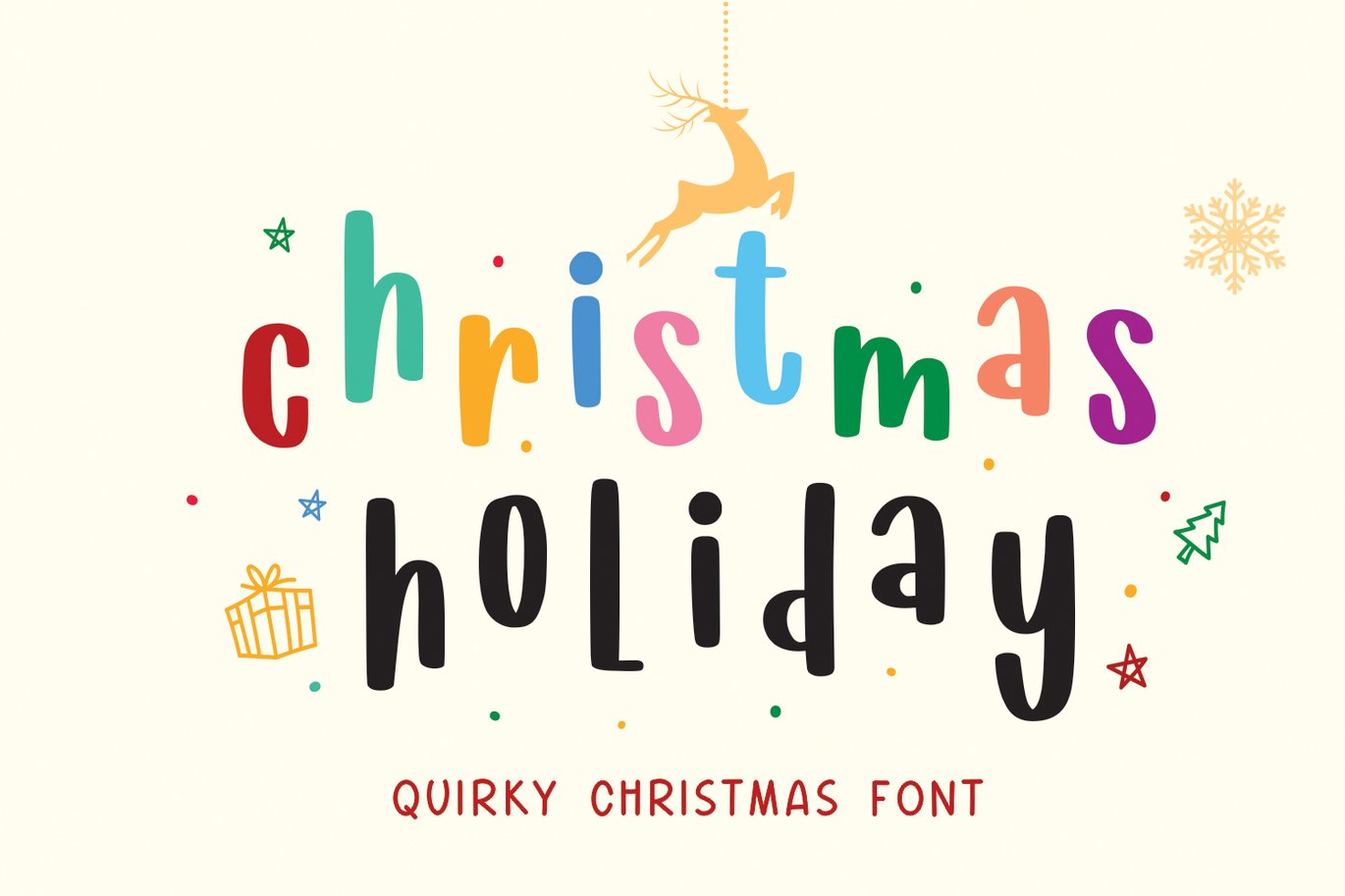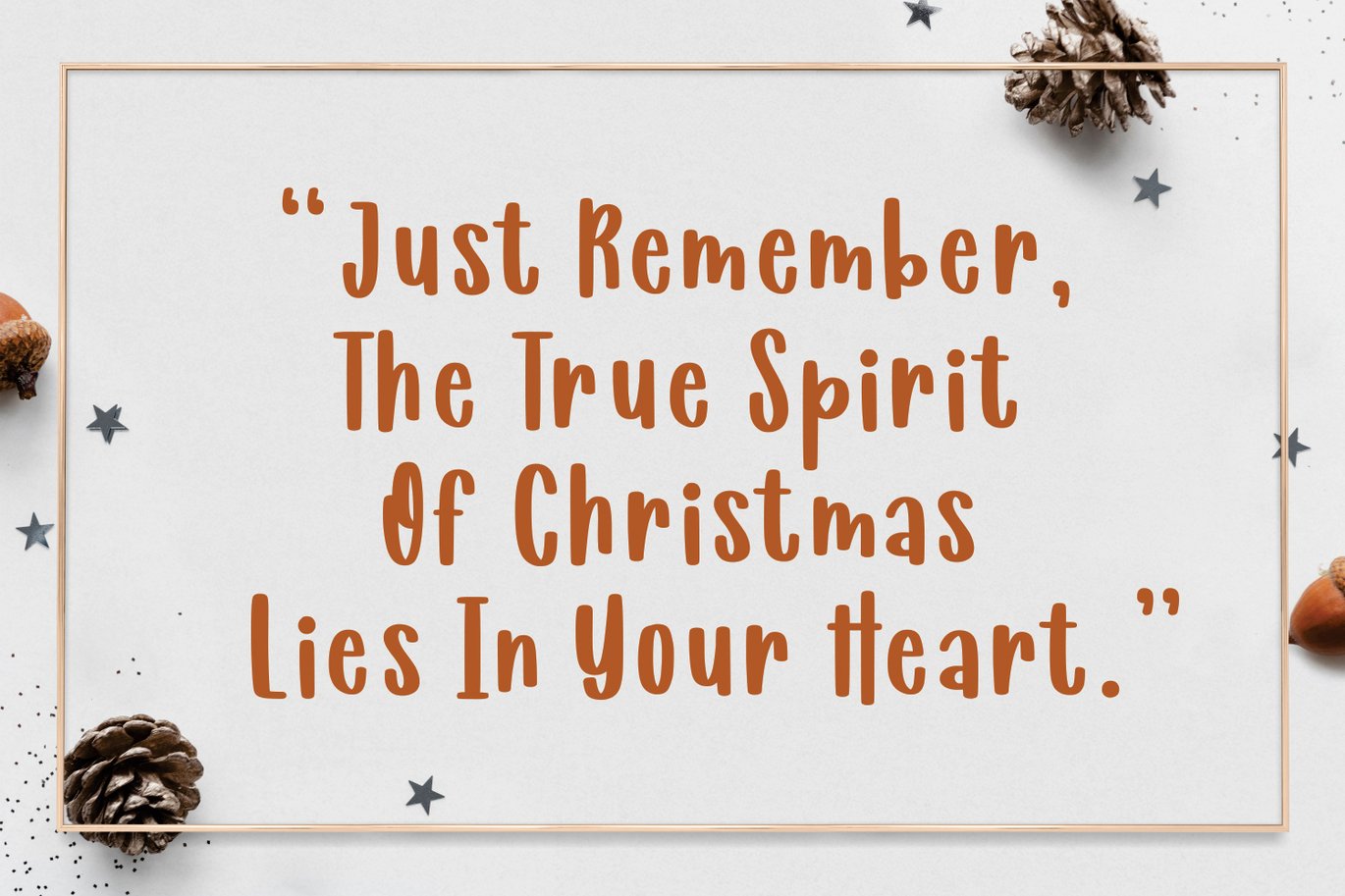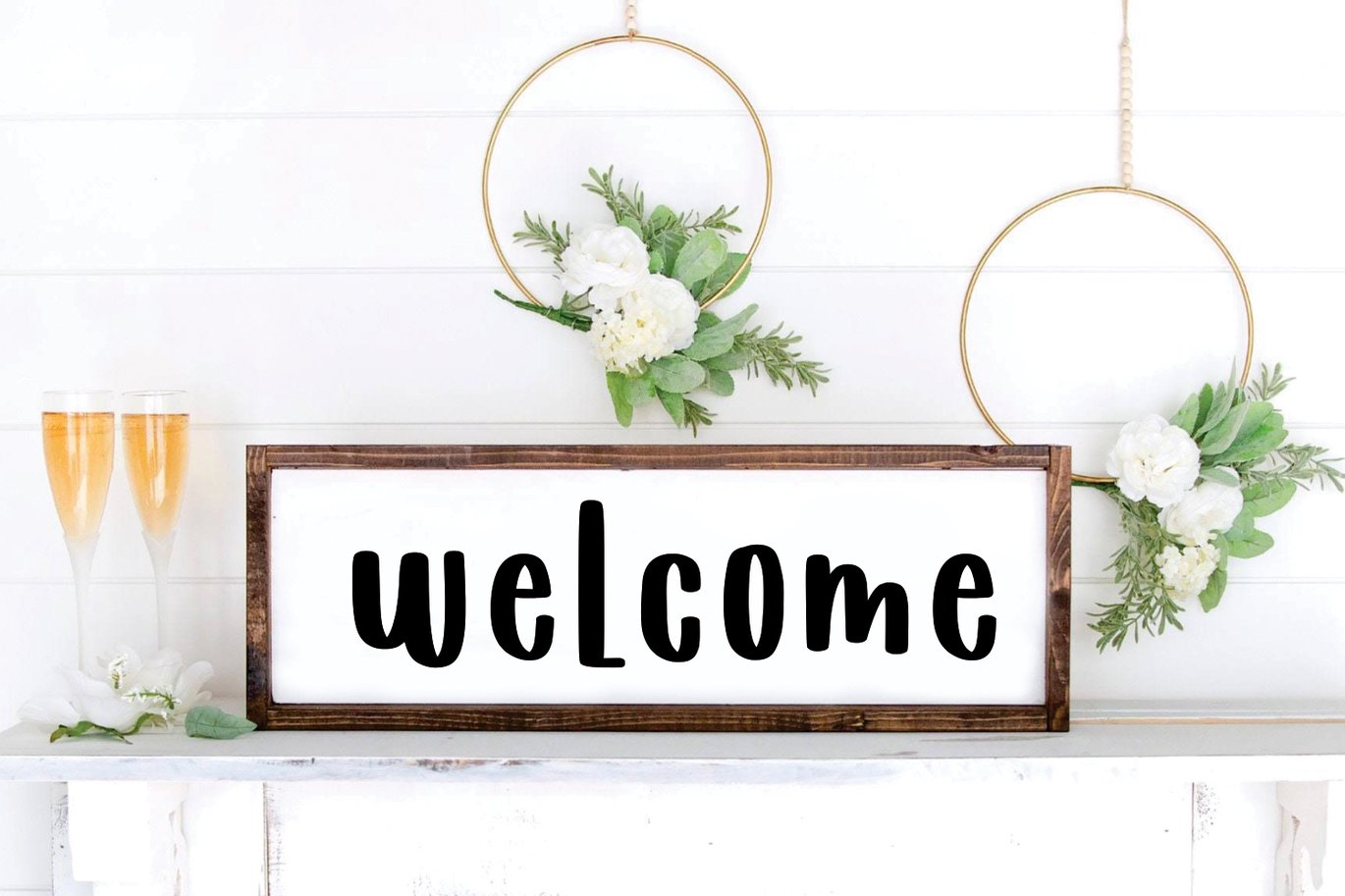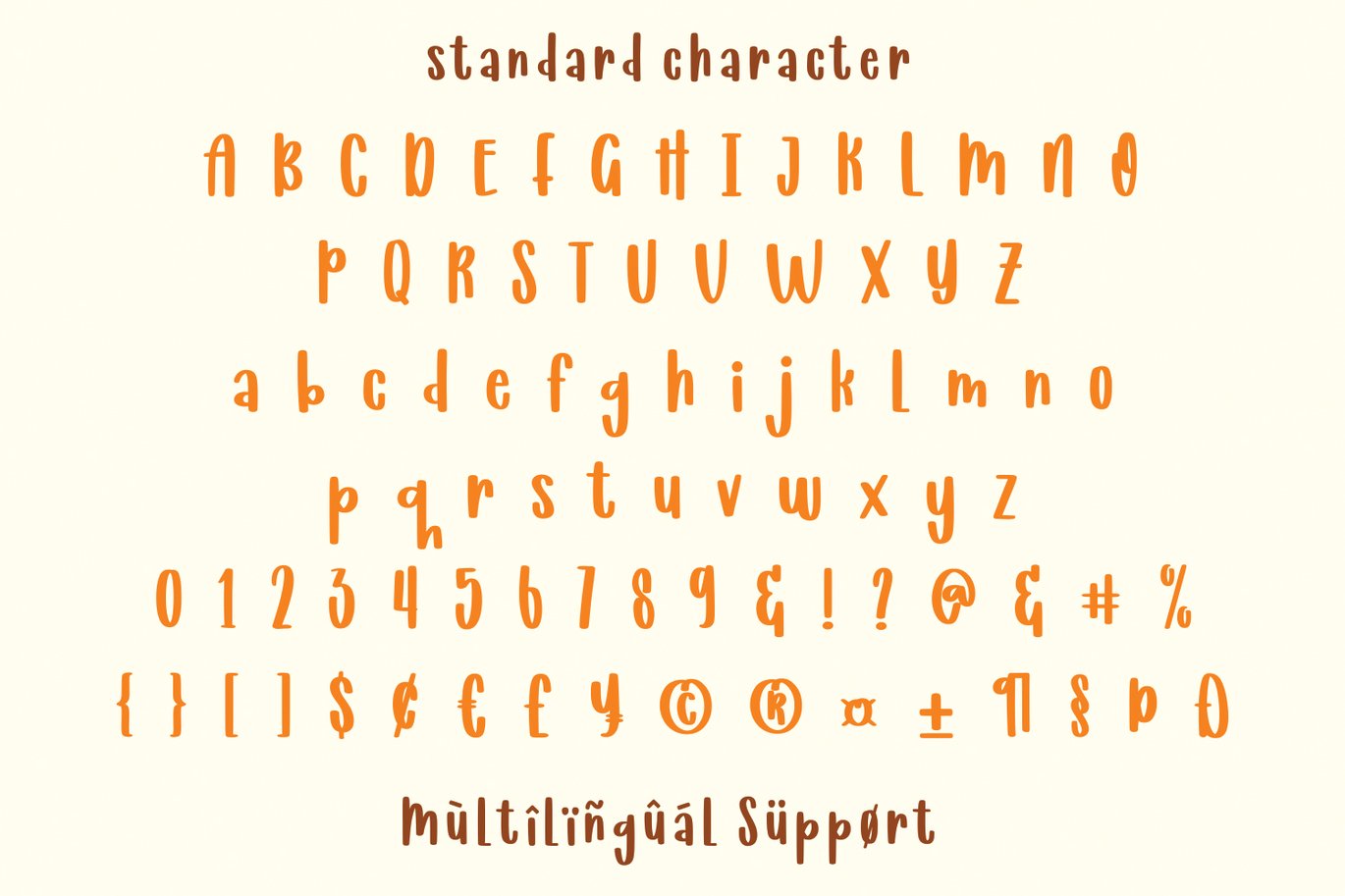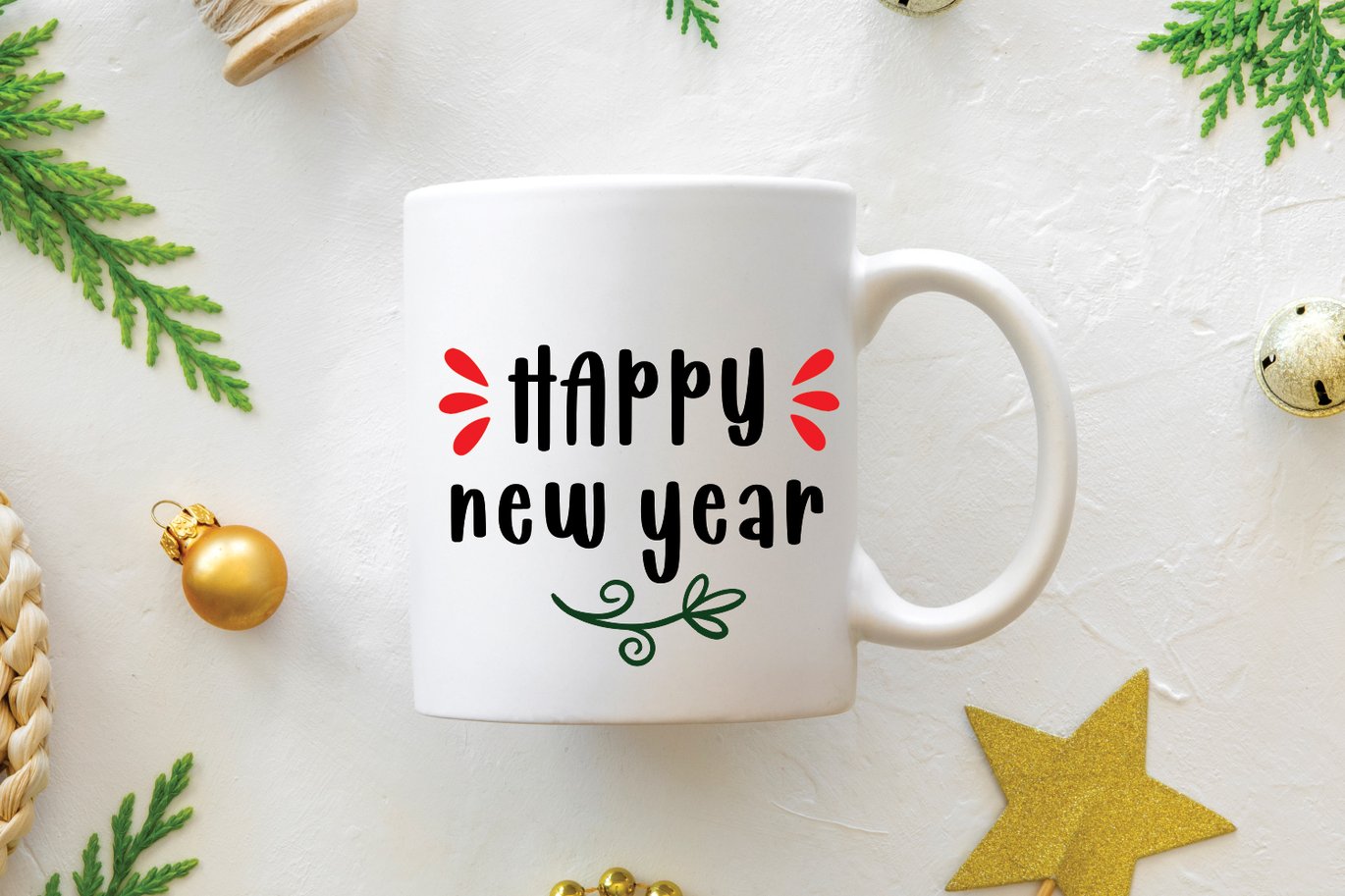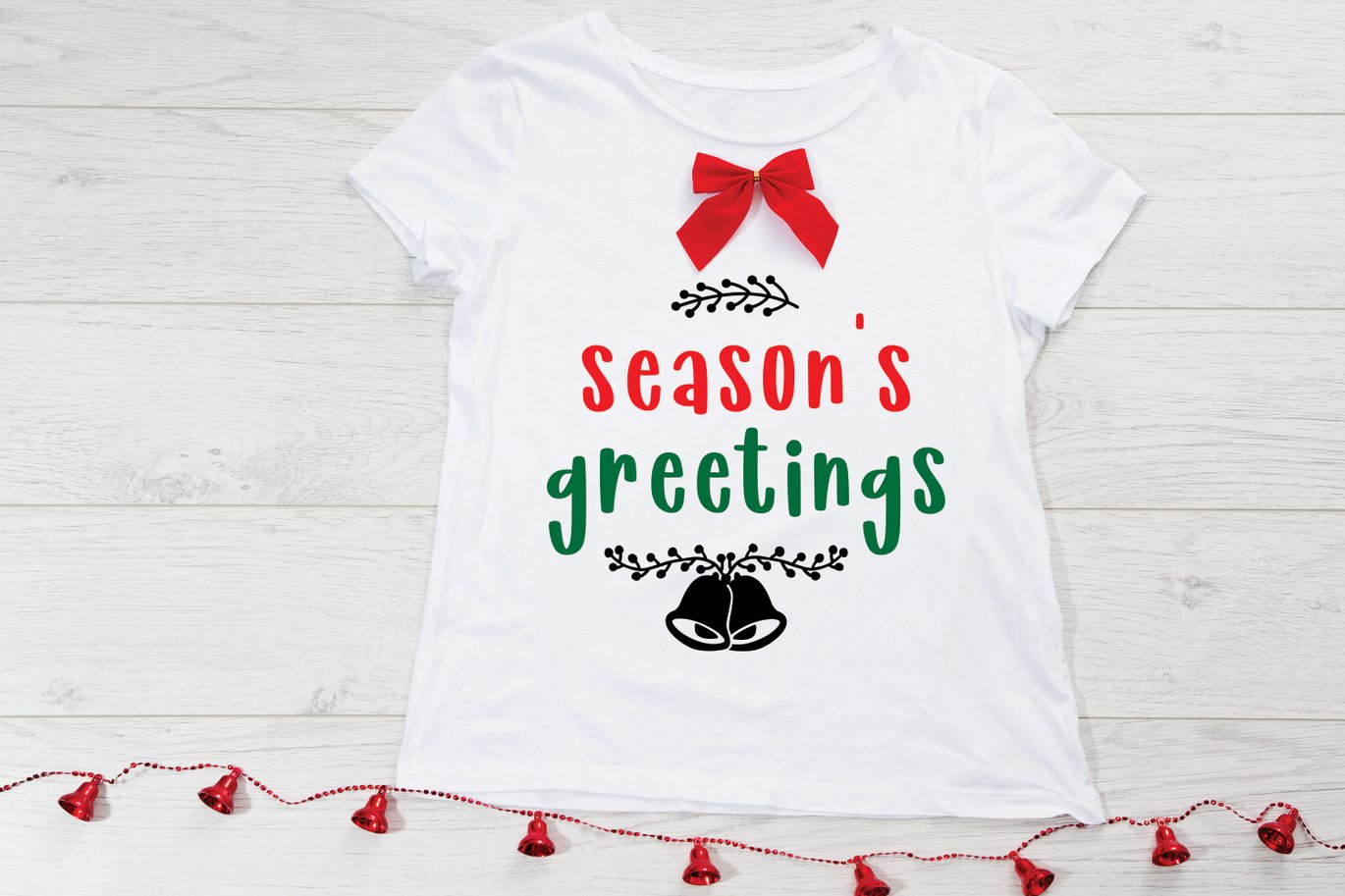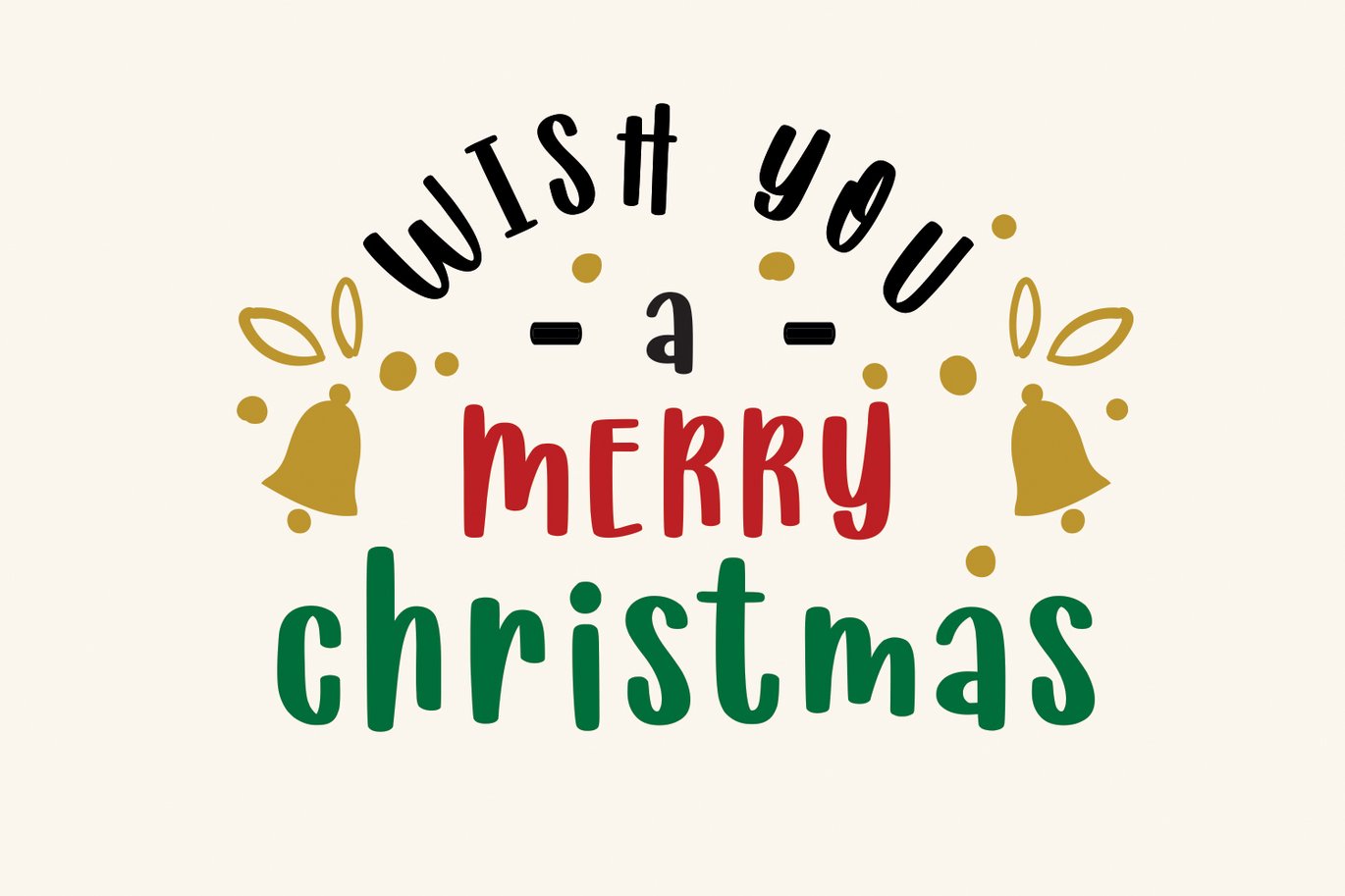
Christmas Holiday – Christmas Font
Introducing “Christmas Holiday,” a charming and whimsical display font that embodies the essence of festive cheer and the joyous celebrations of Christmas, winter, and the entire holiday season.
This cute font is a perfect blend of seasonal merriment, seamlessly transitioning from Christmas and New Year’s to the blooming delights of spring and the cozy hues of autumn. Crafted with creativity in mind, it’s an ideal choice for a variety of projects, including crafting and embroidery.